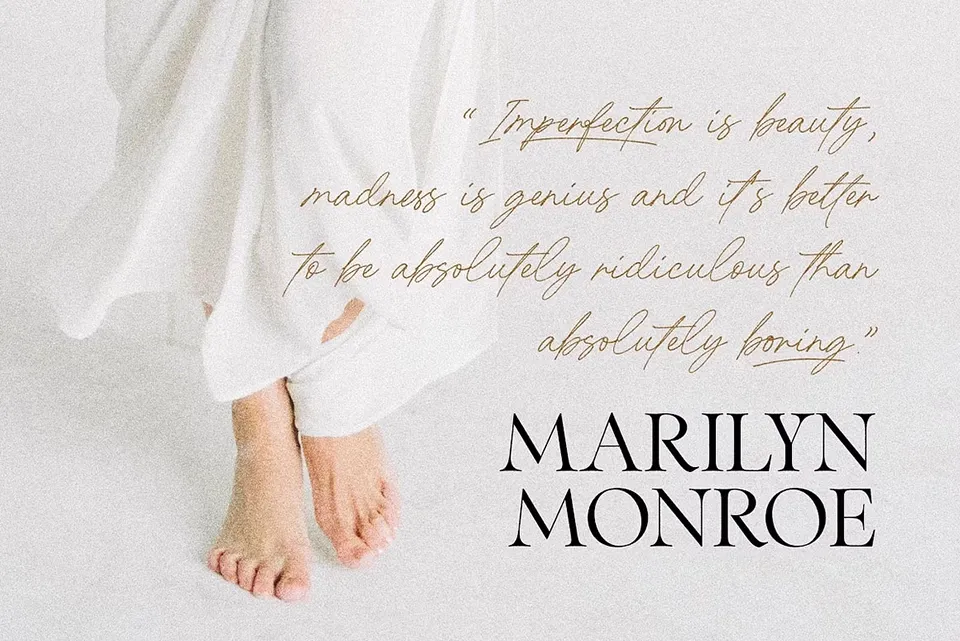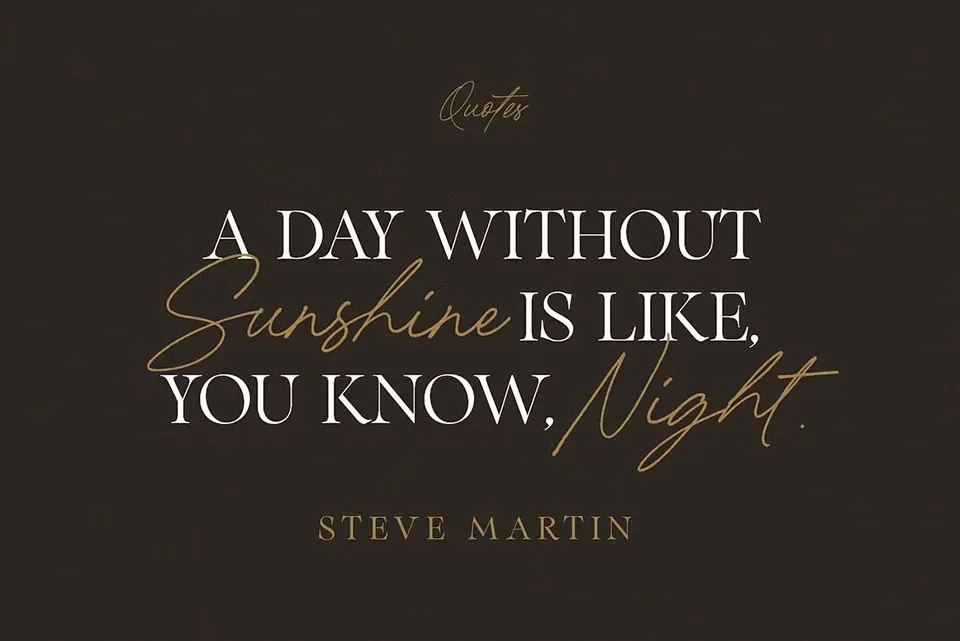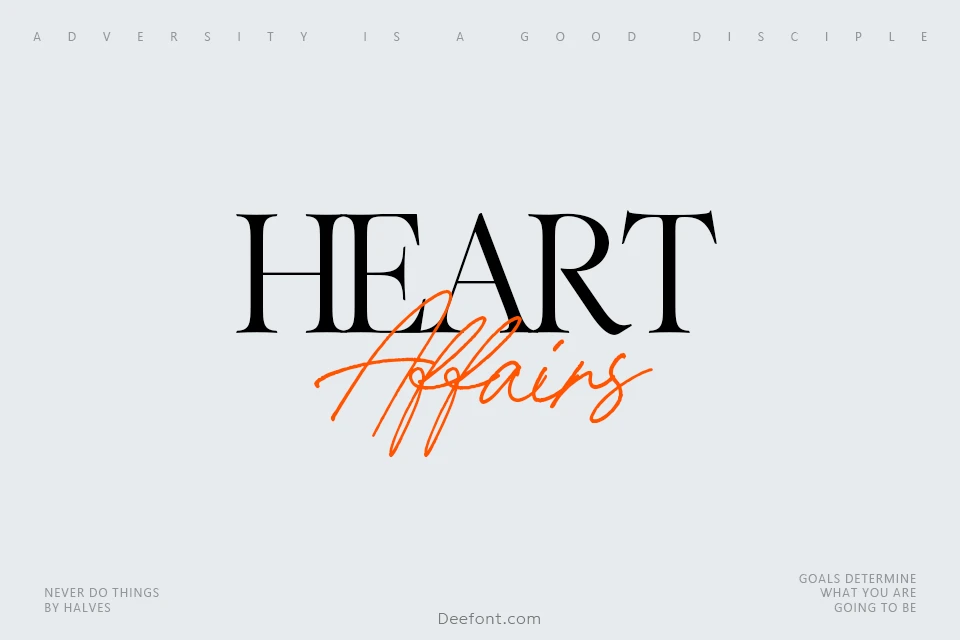
Heart Affairs Font
Heart Affairs Font font is a sophisticated font duo that seamlessly blends an elegant serif with a stylish handwritten script. Designed to bring both classic charm and modern flair, this typeface is ideal for wedding invitations, branding, editorial layouts, and more. With features like uppercase and lowercase letters, alternates, ligatures, and multilingual support, Heart Affairs offers exceptional versatility and timeless appeal for creative projects.